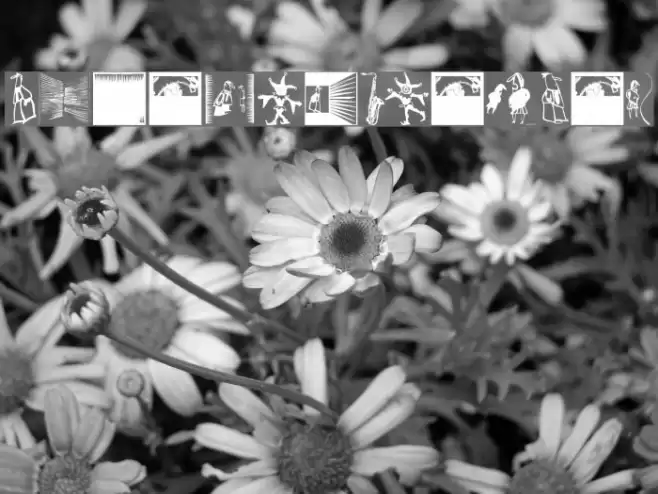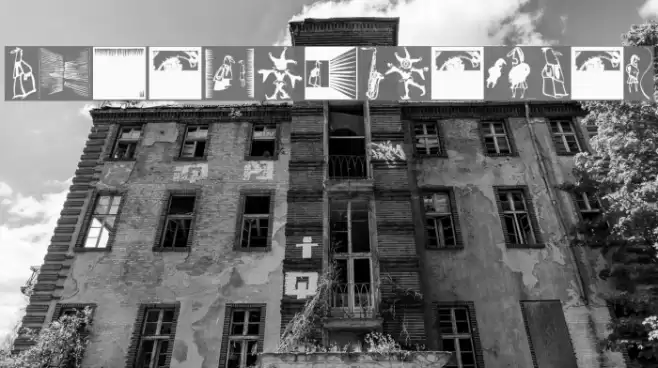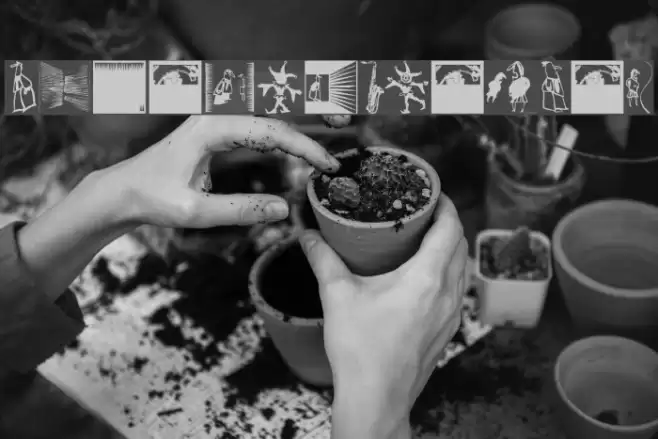
A highly decorative and illustrative font composed of whimsical, hand-drawn characters, abstract shapes, and playful figures. Each glyph is unique, featuring a mix of cartoonish people, animals, geometric forms, and surreal elements, resulting in a visually eclectic and artistic style.
Whimsical, illustrative, and highly decorative font with unique hand-drawn characters from Uncategorized fonts.
- Proposed Projects: Children's books, art posters, album covers, creative branding, event invitations, experimental design projects.
- Overall Style: Decorative, Artistic, Whimsical
- Use Case: Logos, Posters, Titles, Artistic Projects